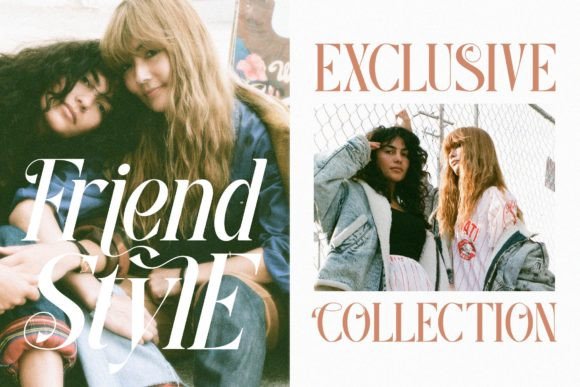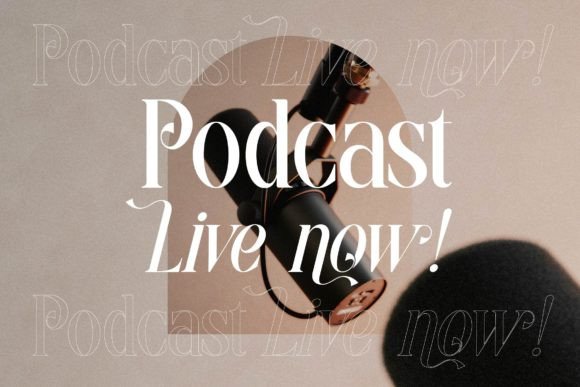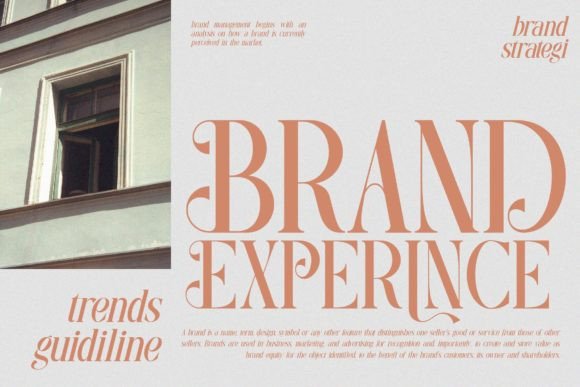
Introduction to Rasmien Font
Rasmien | Elegant Serif suitable for any projects such as logos, branding projects, homeware designs, product packaging, mugs, quotes, posters, shopping bags, t-shirts, book covers, name cards, invitation cards, greeting cards, labels, photography, watermark, special events, and all your other lovely projects that need an Elegant Serif taste.
This font is PUA encoded which means you can access all of the amazing glyphs and ligatures with ease .
Key Features of Rasmien Font
Why Choose Rasmien Font?
Rasmien Font offers exceptional quality and versatility, making it a valuable addition to your design toolkit. Whether you’re creating for personal projects or commercial use, Rasmien Font delivers professional results.